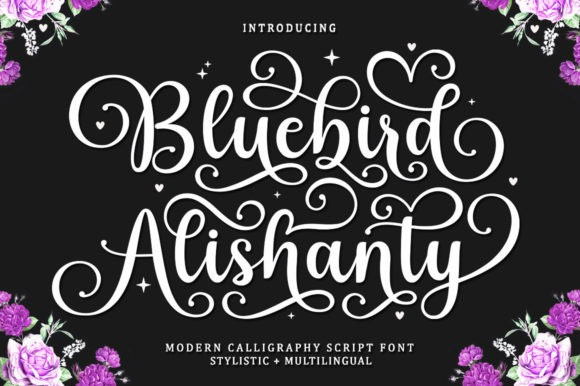
Bluebird Alishanty Font
Bluebird Alishanty Calligraphy Font is a very stylish, elegant and unique handwritten font. Expertly designed to be a true favourite, this font has the potential to take any of your creative ideas to the highest level!